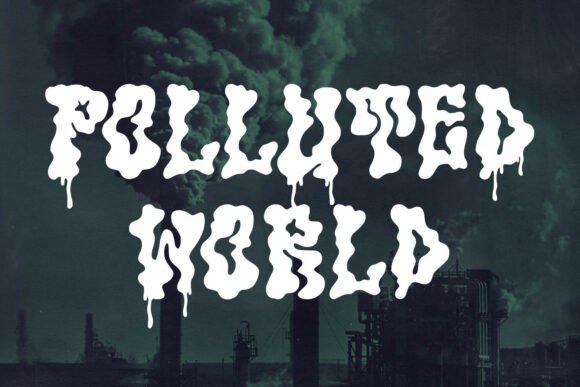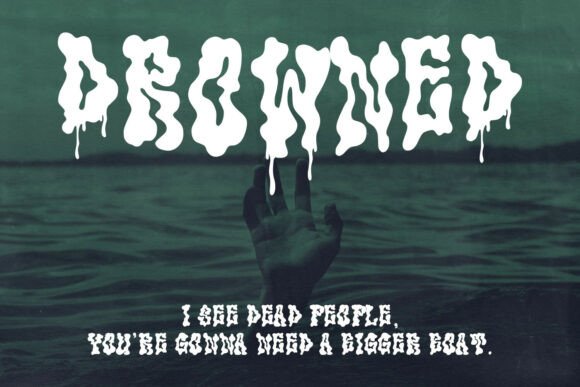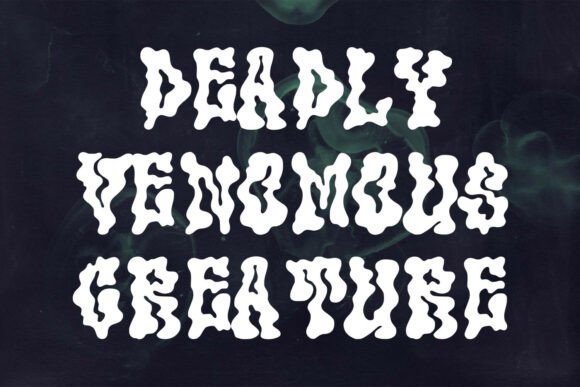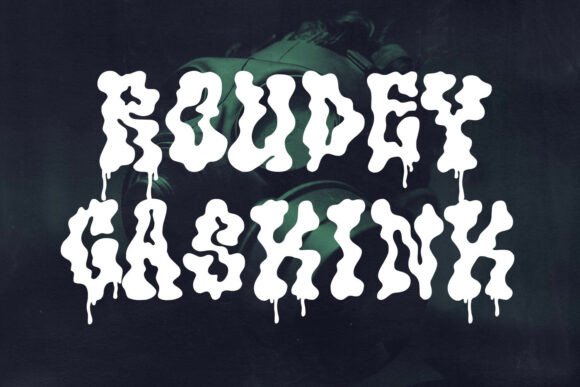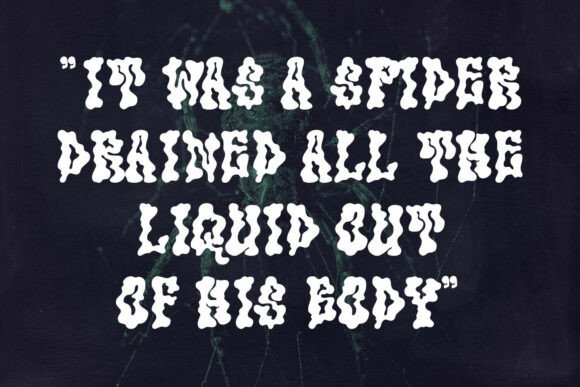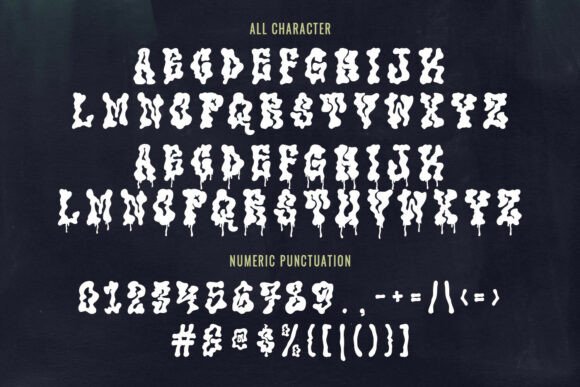
Introduction to Luicoob Font
Introducing Luicoob, a chilling and captivating display font designed to inject an immediate sense of horror and mystery into your projects.
This typeface features bold, chunky letters with a unique liquid, melted, and dripping effect, making it perfect for designs that need to look sinister, gooey, or freshly slimy Horror aesthetic, perfect for conveying themes of fear, movies, vintage horror, or a macabre atmosphere.